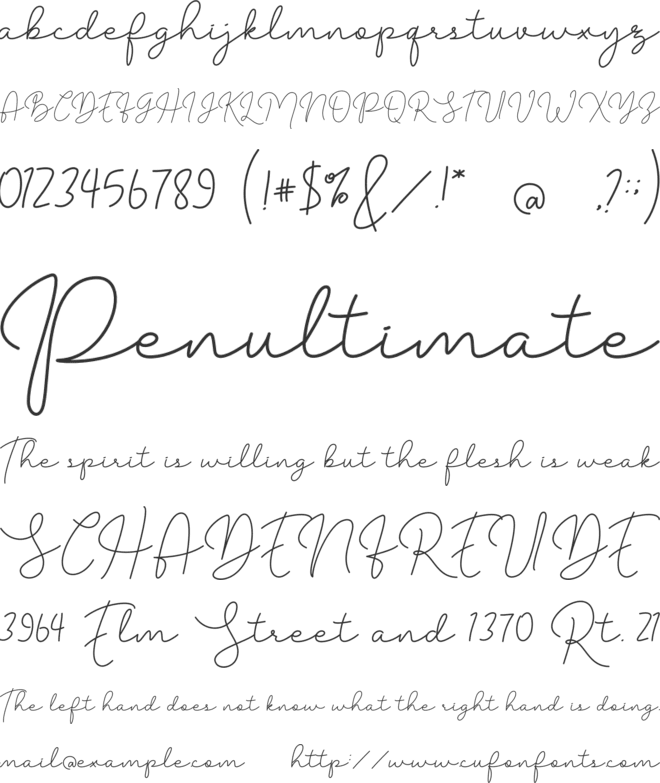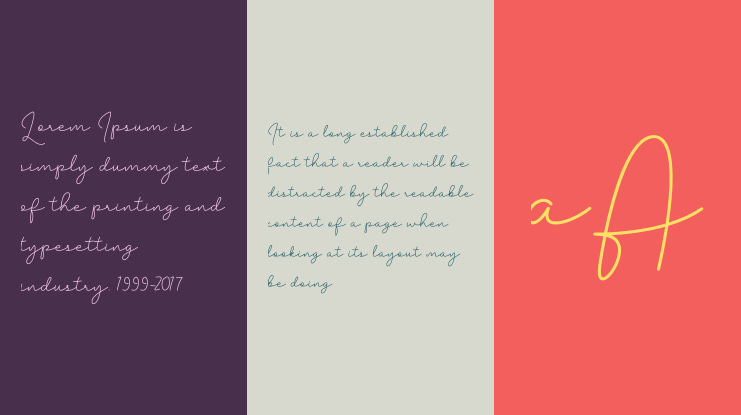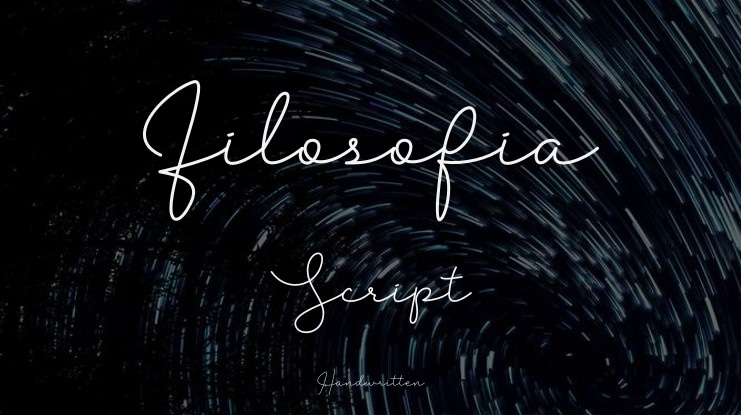
Filosofia Script Font
Filosofia Script is an elegant, modern and unique handwritten font. It looks stunning on wedding invitations, thank you cards, quotes, greeting cards, logos, business cards, and any other design that requires a stylish vibe. PLEASE READ THIS CAREFULLY :By installing or using this font, you are agree to the Product Usage Agreement: This font is a DEMO VERSION and ONLY allowed for PERSONAL USE. NO COMMERCIAL USE ALLOWED! Here is the link to purchase full version and commercial license: https://bit.ly/3HclwtP For Corporate use, you have to purchase Corporate license If you need a custom license please contact us by email :  visit our store for more amazing fonts : https://www.creativefabrica.com/designer/tedha-studio